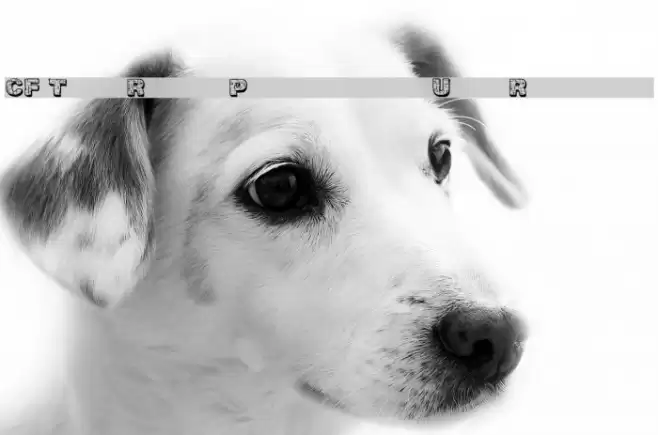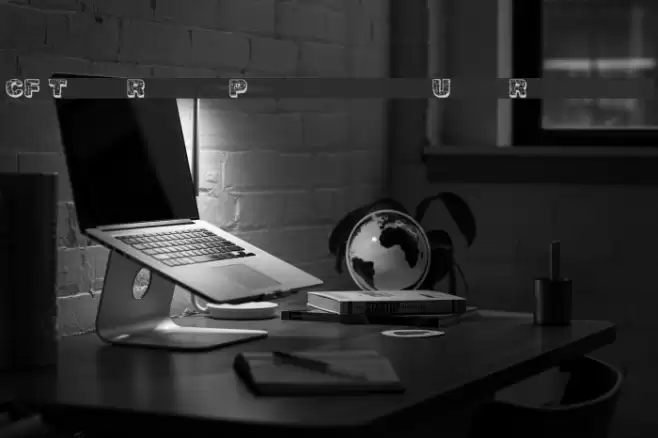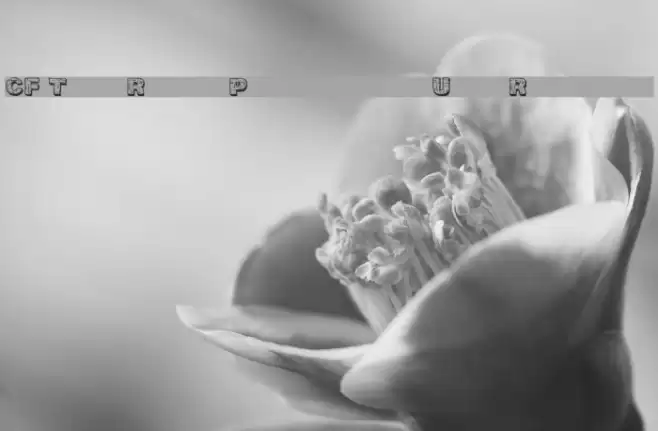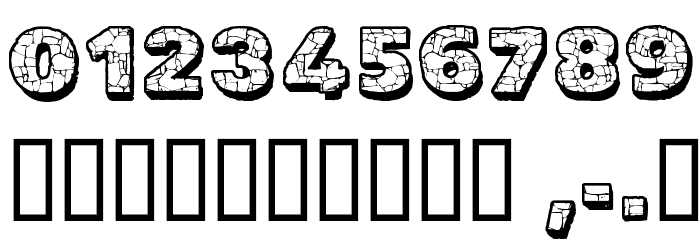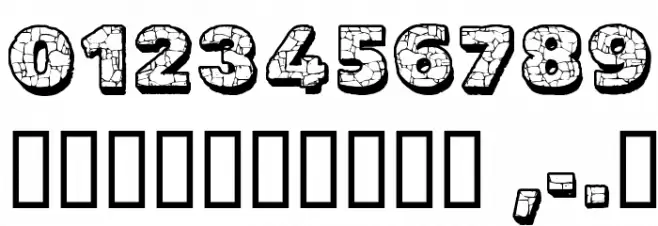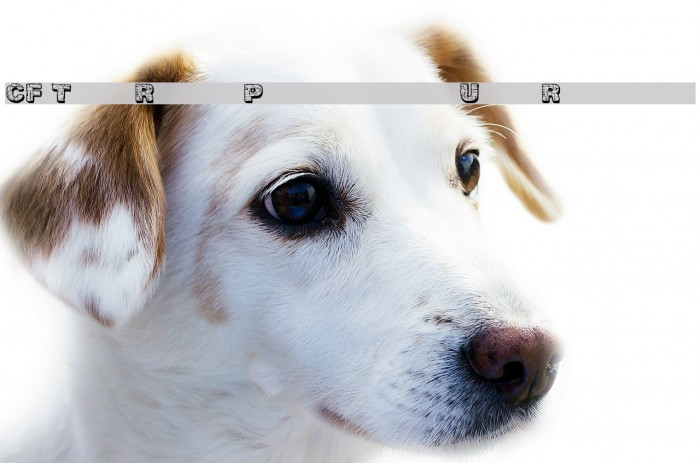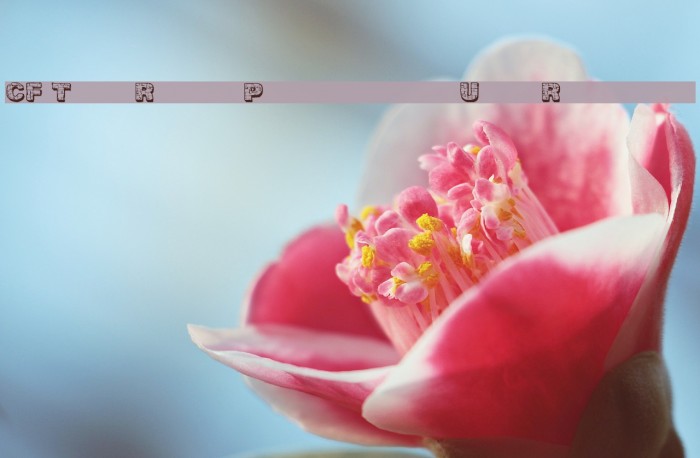
CF The Rock Personal Use Regular Font
CF The Rock Personal Use Regular Description
This font features a bold and rugged design, reminiscent of cracked stone or rock surfaces. Each character is filled with a pattern that mimics the texture of natural rock, giving it a unique and eye-catching appearance. The uppercase letters are robust and sturdy, while the numbers and special characters maintain the same textured style. This font is ideal for projects that require a strong, impactful visual element, such as posters, logos, or themed event materials.
A bold, textured font with a rock-like appearance from Decorative fonts.
- Proposed Projects: Ideal for posters, logos, themed events, and any design needing a strong, textured look.